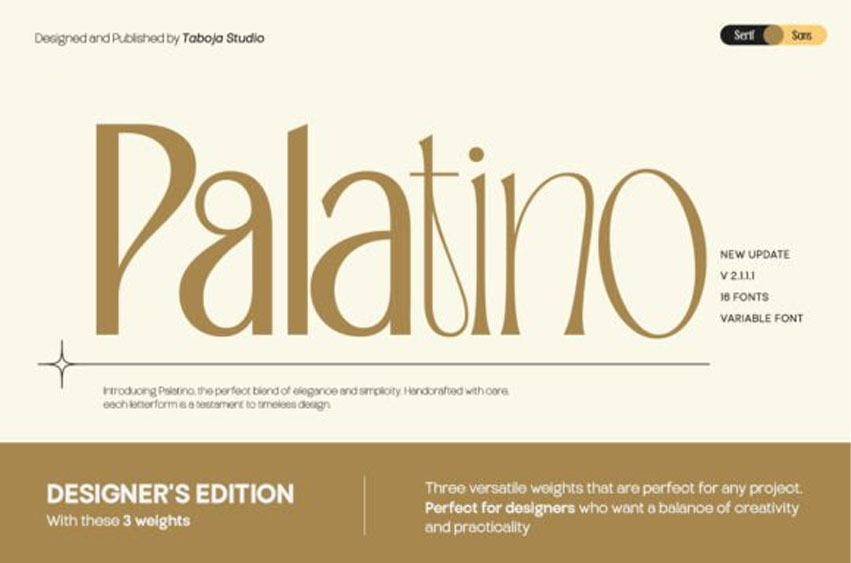
Palatino Serif Font
Palatino Serif Font Designer’s Edition is a modern font designed to meet the needs of designers with an elegant and professional look. The font comes in 3 weights (Light, Regular, Bold) and has two unique styles: Serif and Sans Serif, providing great flexibility for different types of design projects.
Each letter is designed with meticulous detail, creating the perfect balance between classic elegance and modern simplicity. TBJ Palatino is ideal for headlines, supporting text, or branding elements, making it a top choice for designers who want a harmony between creativity and practicality.